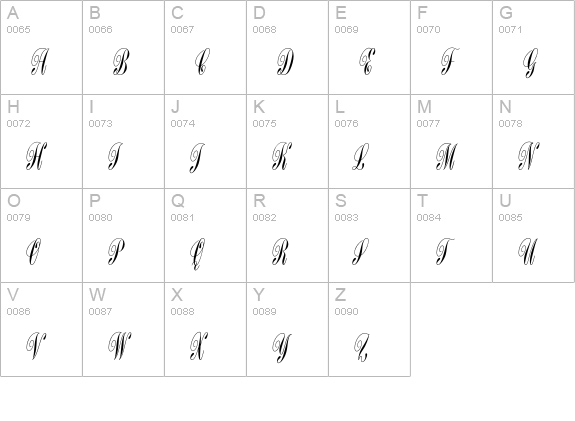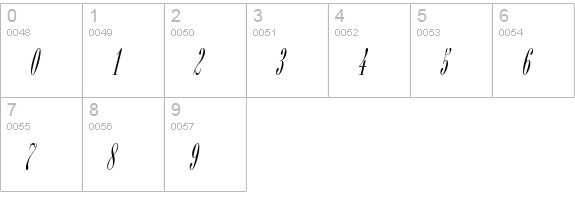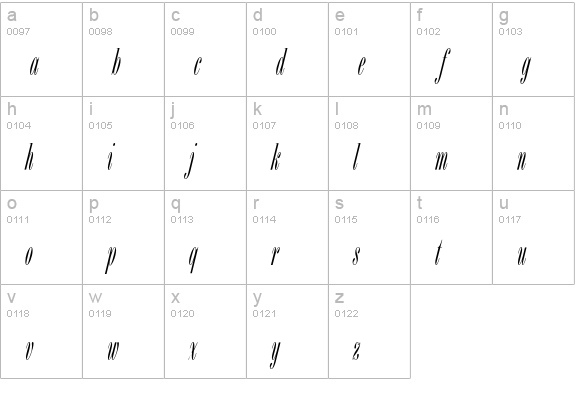
BordeauxICG-Script Font Details
BordeauxICG-Script is a stunning and elegant font that embodies sophistication and style. With its delicate flourishes and graceful lines, this font is perfect for adding a touch of class to your designs. Whether you're working on wedding invitations, branding materials, or any other project that requires a touch of luxury, BordeauxICG-Script is sure to impress. The best part? BordeauxICG-Script is available for free download at FontsMarket.com. That's right, you can add this exquisite font to your collection without spending a dime. Simply head over to FontsMarket.com and start using BordeauxICG-Script to elevate your design projects to the next level. Don't miss out on this opportunity to enhance your creations with the beauty and sophistication of BordeauxICG-Script. Download it today and let your creativity shine with this exquisite font.